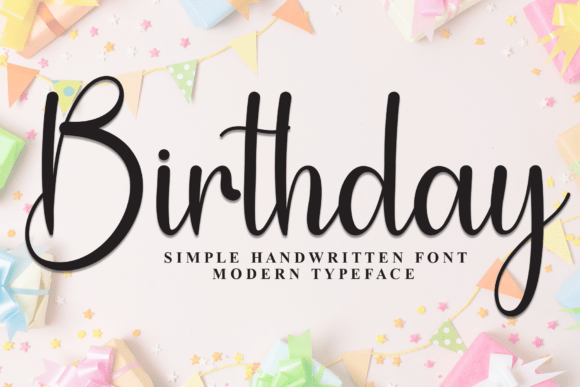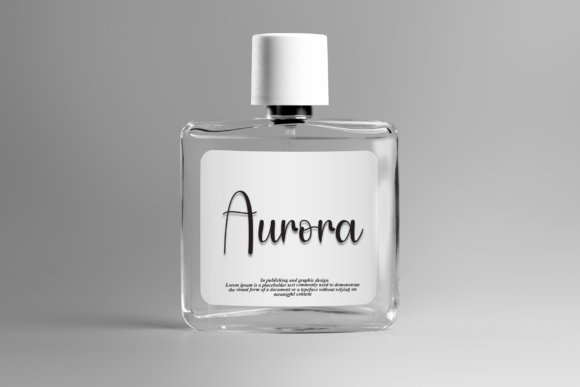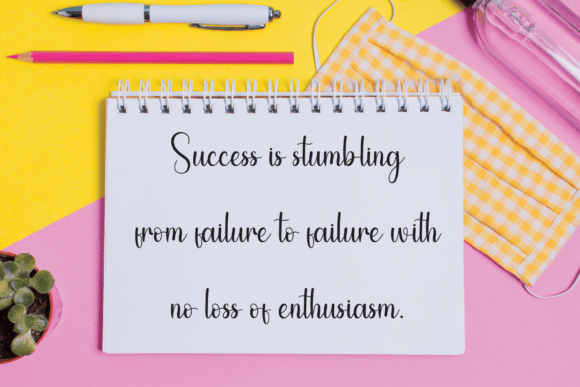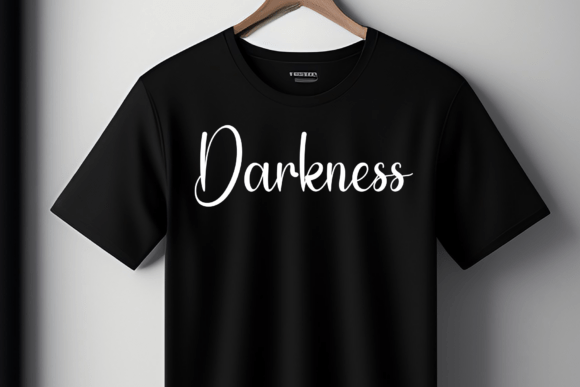
About the Birthday Font
Crafted with precision, the Birthday Font is ready to bring your ideas to life. Birthday is a stylish handwritten script font that exudes elegance and charm with its fluid, graceful strokes. Perfect for branding, invitations, and stationery, it adds a personal and sophisticated touch. The smooth curves and natural flow create a timeless, refined look for any design.
Birthday Font Usage Examples
Birthday Font Example